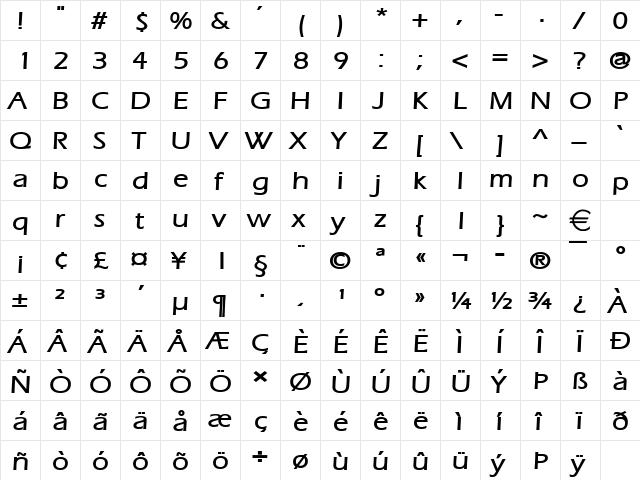
EricWide Bold Font Preview
EricWide Bold
EricWide Bold Font Details
Design Context for EricWide Typeface
EricWide takes a measured approach to typography — its balanced proportions and neutral character make it a reliable workhorse for both digital and print work. The heavy weight commands attention and anchors typographic hierarchies.